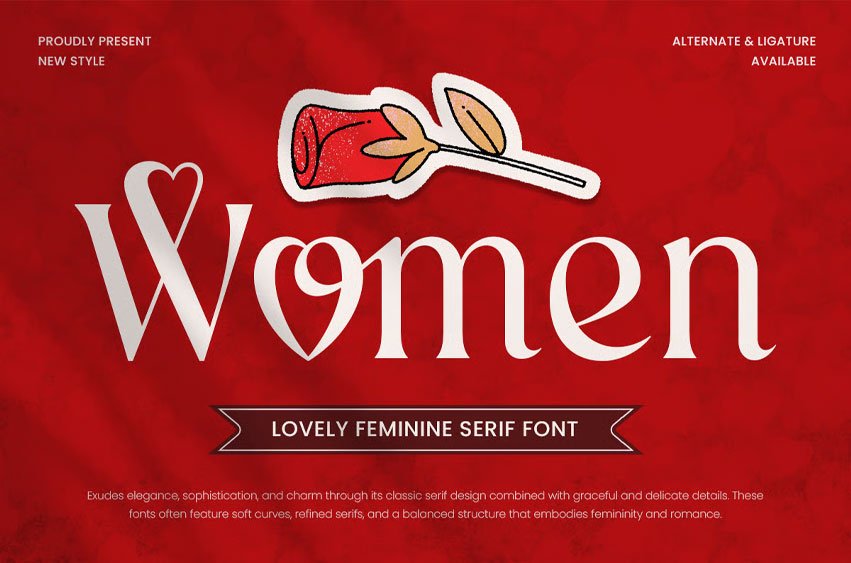
Women Lovely Font Celebrate International Women’s Day, female-led brands, and creative empowerment with a font that reflects both delicacy and strength.
Women – Lovely Feminine Serif Font Features:
- Elegant and modern serif design
- Perfect for branding, fashion, and editorial projects
- Unique and Beauty Ligature Collections Ready
- Punctuation, numbers, and symbols included
- Uppercase and lowercase letters
- OpenType features with stylish alternates
Celebrate feminine elegance and empowerment with Women—the perfect serif font for chic and inspiring designs.
Design with strength, grace, and confidence!